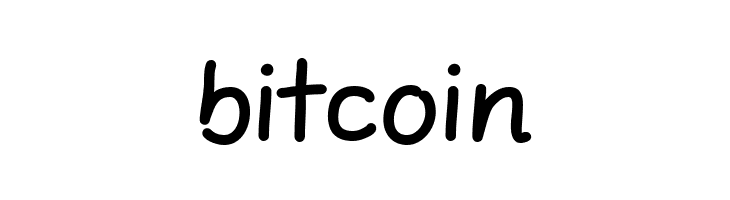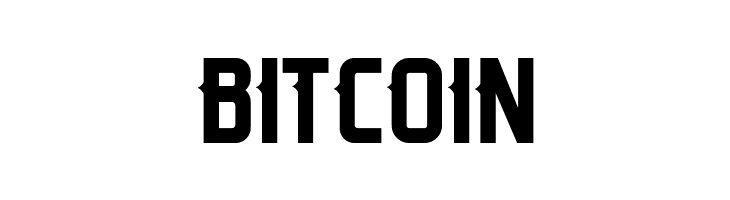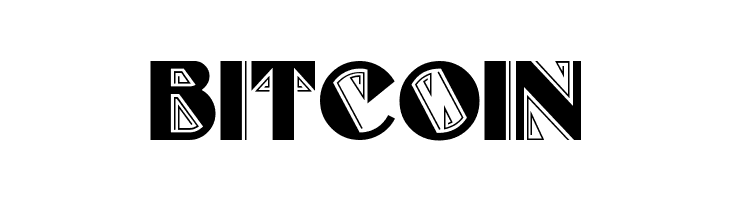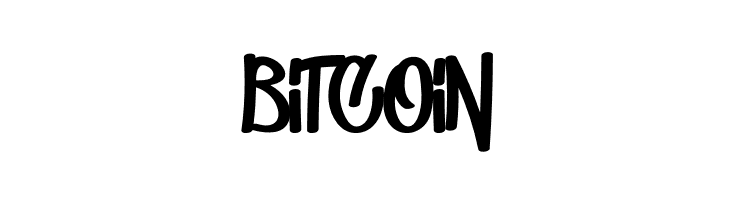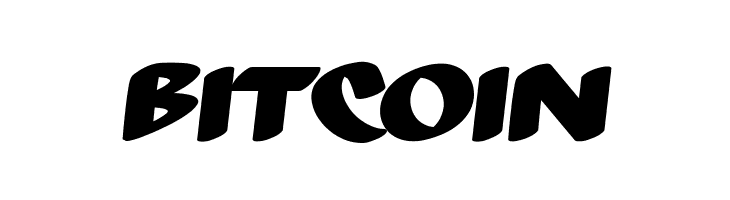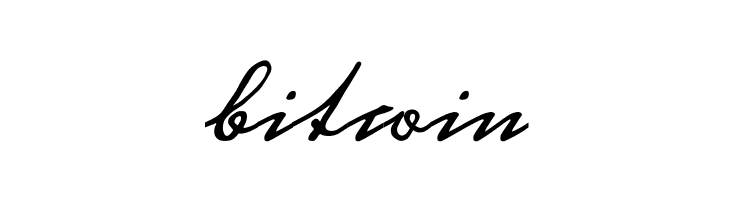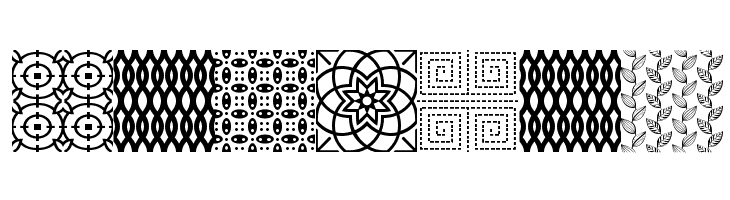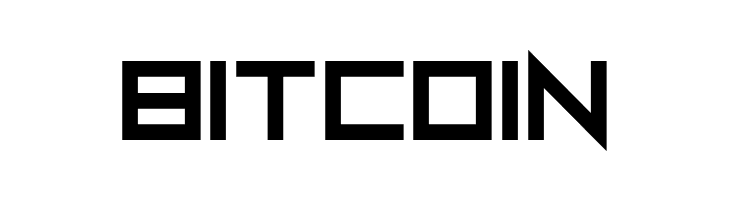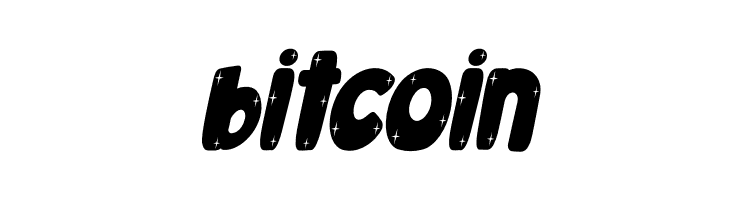
( Luc Mahler )
A bold, geometric font with sharp angles and a modern aesthetic.
( Luc Mahler )
A modern geometric font with sharp angles and clean lines.
( Luc Mahler )
A bold, italicized font with sharp angles and a modern, dynamic style.
( Malre - David Masson Alalire - www.facebook.com/Community-Search-146103155534356/ )
A classic serif font with high contrast and elegant, sharp serifs.
( Malre - David Masson Alalire - www.facebook.com/Community-Search-146103155534356/ )
A bold, classic serif font with strong, elegant strokes.
( Peter Olexa - www.dealjumbo.com )
A grunge-style font with an inline design and decorative serifs, offering a vintage and textured appearance.
( Rahmat Hidayat )
An elegant script font with flowing, interconnected letters and a calligraphic style.
( Siwox Studios - bit.ly/saffatinmyfonts )
An elegant script font with flowing, cursive letters and graceful curves.
( Vladimir Nikolic - www.coroflot.com/vladimirnikolic )
A bold representation of Braille, a tactile writing system for the visually impaired.
A bold slab serif font with strong, block-like serifs and uniform character design.
( ADT )
A pictographic tool-themed dingbat font with bold silhouettes.
( Daniel Plant - www.fontmonster.org )
A tactile writing system using raised dots for visually impaired readers.
( Elbow - www.elbow.com/fonts )
A bold, geometric font with a pixelated, retro digital style.
( Fontsandfashion - www.fontsandfashion.com/ )
A whimsical and fluid script font with a hand-drawn appearance.
( Jean Douteau - perso.orange.fr/jm.douteau/ )
A dotted, handwriting practice font ideal for educational use.
( Jean Douteau - perso.orange.fr/jm.douteau/ )
A dotted, cursive-style font ideal for educational and decorative purposes.
( Magic Fonts )
A playful, handwritten font with smooth, rounded edges and a casual style.
( Magic Fonts )
A smooth, flowing script font with a handwritten style.
( MaximDude's Fonts - maximdude.deviantart.com )
A playful, handwritten-style font with irregular, whimsical strokes.
( Rafael Dinner - alum.mit.edu/www/rdinner/fonts.html )
A bold, textured font with a dynamic, decorative style.
A playful, rounded font with a handwritten, informal style.
A bold, distressed font with a rugged, vintage style.
A bold, geometric font with intricate line patterns and sharp edges.
A bold, graffiti-inspired font with dynamic, expressive characters.
A playful, rounded font with smooth curves and a friendly appearance.
A bold, dynamic font with rounded strokes and a playful, energetic style.
An elegant, flowing script font with a cursive, handwritten style.
A decorative pattern font with seamless, tileable motifs.
A serif font supporting Georgian script, extra condensed and medium weight for clear readability.
A thin, modern font supporting the Myanmar script with a clean and minimalist design.
A modern sans-serif font supporting Telugu script with clean, legible design.
A bold, geometric font with a futuristic and robotic design.
A fluid, cursive script font with elegant, connected strokes.
( Fonts by Kong Font )
A bold, playful font with a starry pattern, ideal for creative projects.
A bold, slanted font with high contrast and a modern, dynamic style.